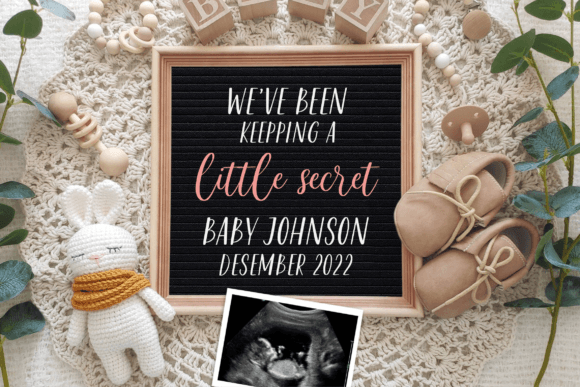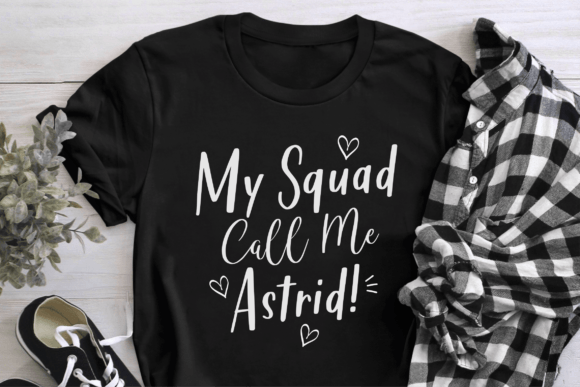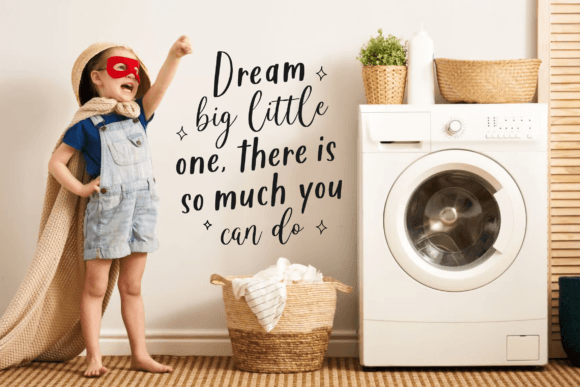
Introduction to Lullapeach Font
Have you ever been working on a creative project, pouring your heart and soul into every detail, only to realize that the perfect font is missing? For designers, this can be a frustrating moment that can derail even the most exciting project. But what if I told you that there’s a solution that can elevate your designs and make them truly stand out? Say hello to the Lullapeach Font, a beautiful, handwritten, and quirky font that’s perfect for adding a touch of whimsy to your work.
Whether you’re working on a product packaging design, creating a branding project, or simply looking for a font to add some personality to your social media posts, the Lullapeach Font is an excellent choice. Its high-quality design and transparent background make it a valuable resource for designers who want to add a unique touch to their work. And the best part? It’s available for free download, making it a must-have for any creative project.
Key Features of Lullapeach Font
- High-quality design resource suitable for various creative projects, including illustrations, graphics, and digital art.
- Features a unique and playful style, perfect for adding a touch of whimsy to designs.
- Designed with a high resolution, ensuring crisp and clear display, even at larger sizes.
Honest Review: Lullapeach Font
I recently stumbled upon the Lullapeach Font, and I must say it’s a hidden gem in the design world. This free download has been a game-changer for my creative project, adding a touch of whimsy and elegance to my designs.
What works well about this font is its high quality and versatility. The transparent background makes it easy to use in various design scenarios, from web design to graphic design. The font’s unique design elements, such as its curved lines and playful letterforms, make it perfect for creating eye-catching visuals.
- ✨ High-quality design with a unique aesthetic
- ✨ Versatile and easy to use in various design scenarios
However, I did encounter some limitations with this font. The font’s complexity can make it challenging to use in certain contexts, such as in small text sizes or with complex typography.
Overall, I’m impressed with the Lullapeach Font. Its unique design and high quality make it an excellent addition to any designer’s toolkit. While it may have some limitations, its benefits far outweigh its drawbacks, making it a valuable design resource for creatives.
Tips for Getting the Most Out of Lullapeach Font
Use the Lullapeach Font for titles, headings, and body text in your design projects. Experiment with different font sizes, styles, and colors to achieve the desired look. The transparent background feature allows for creative freedom and flexibility in your design.
The Lullapeach Font is ideal for creative projects such as digital invitations, social media graphics, and blog posts. Its high-quality design and transparent background feature make it a versatile design resource for any project.